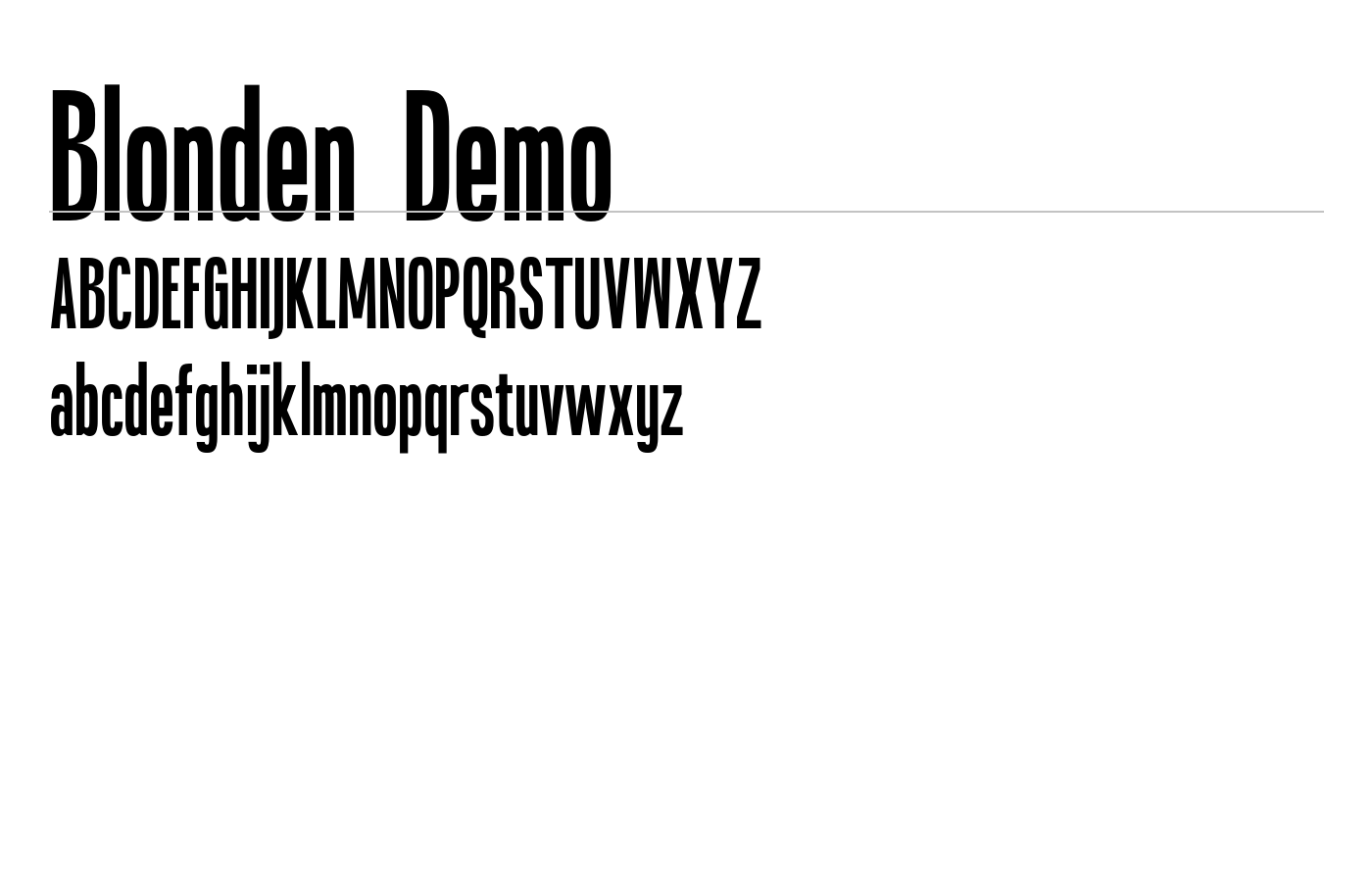
Blonden Demo is a tall, condensed sans serif font with a bold, uniform weight that creates a striking and modern look. Its narrow letterforms and high x-height give it excellent readability while maintaining a sleek, authoritative presence, making it ideal for impactful headlines, posters, and branding that demand attention. This font conveys confidence and style, fitting well with contemporary design projects that require a strong, clean statement.
Blonden Demo Font
About Blonden Demo Font